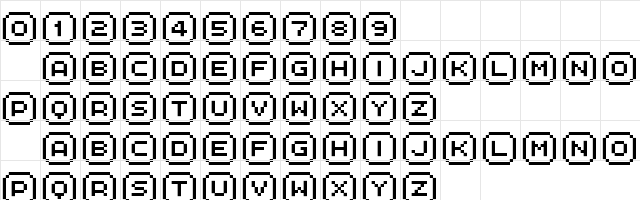
FFF Interface05 Regular
Design Context for FFF Interface05 Typeface
FFF Interface05 offers clean, dependable letterforms without strong stylistic allegiance, making it a practical choice for designers who need flexibility.